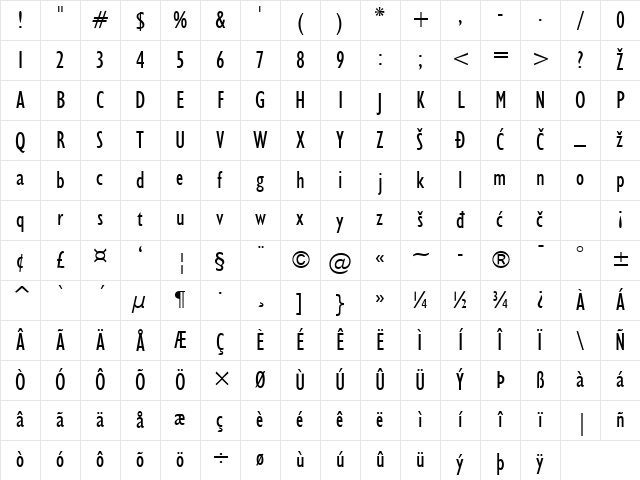
Humanist521Cond Regular
Humanist521Cond Family
Design Context for Humanist521Cond
Humanist521Cond is a composed and adaptable typeface that performs quietly and consistently across a wide range of design contexts. Its narrow stance lets it pack a punch even in space-constrained designs.